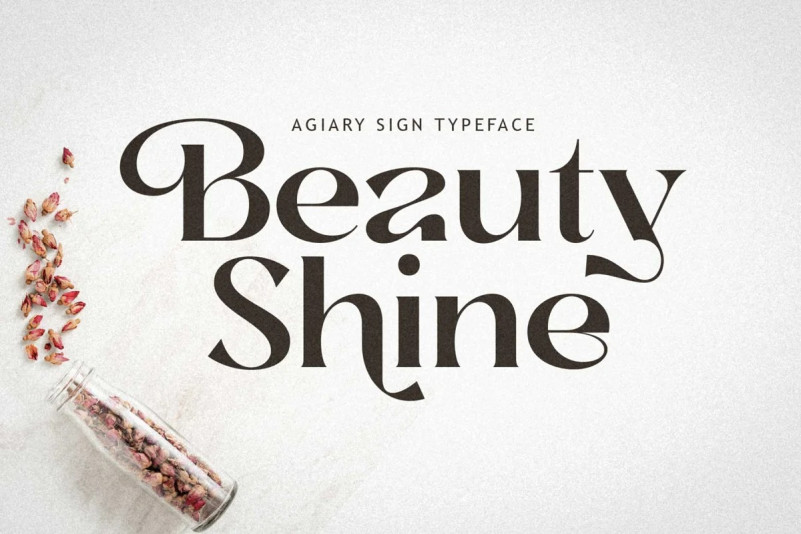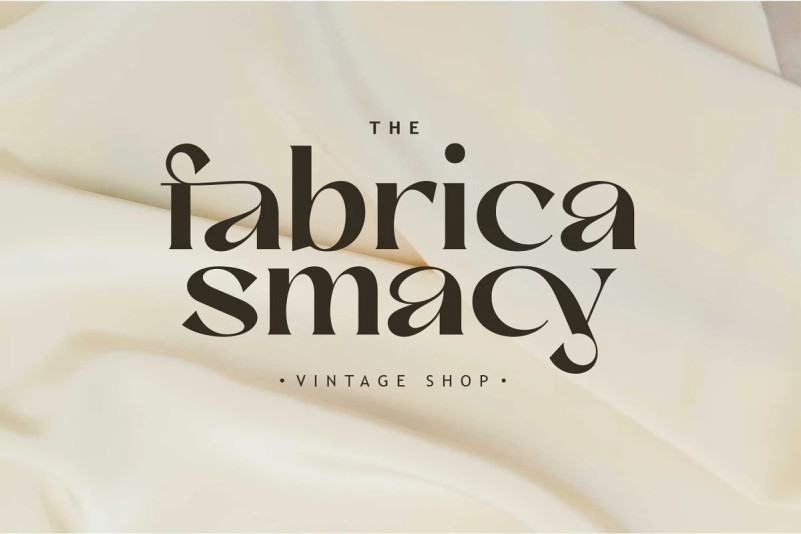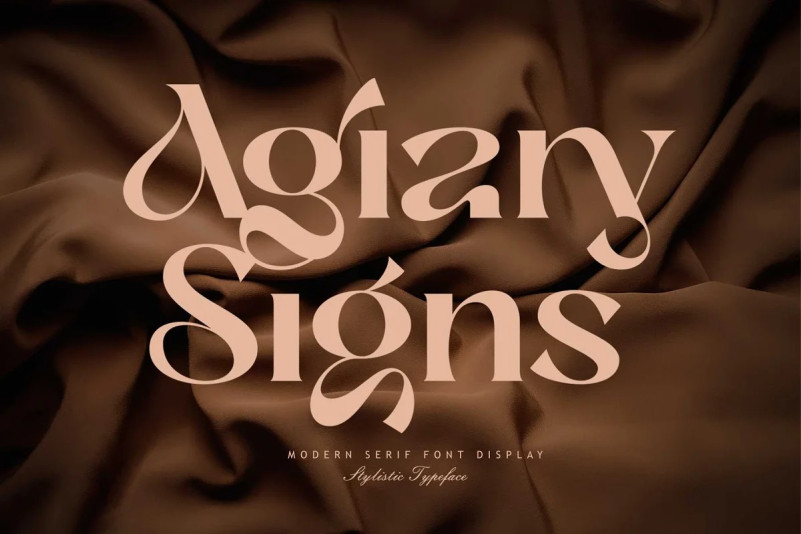
Agiary Signs Font
Agiary Signs Font – Stylish OpenType with letters that appear to dance and rotate in harmony – to form unique & elegant typographic designs. The wide choice of intertwined Opentype and alternative ligatures means lots of choice and variety in your final look.
A wide variety of useful glyphs are included – check out the preview images of all the glyphs.